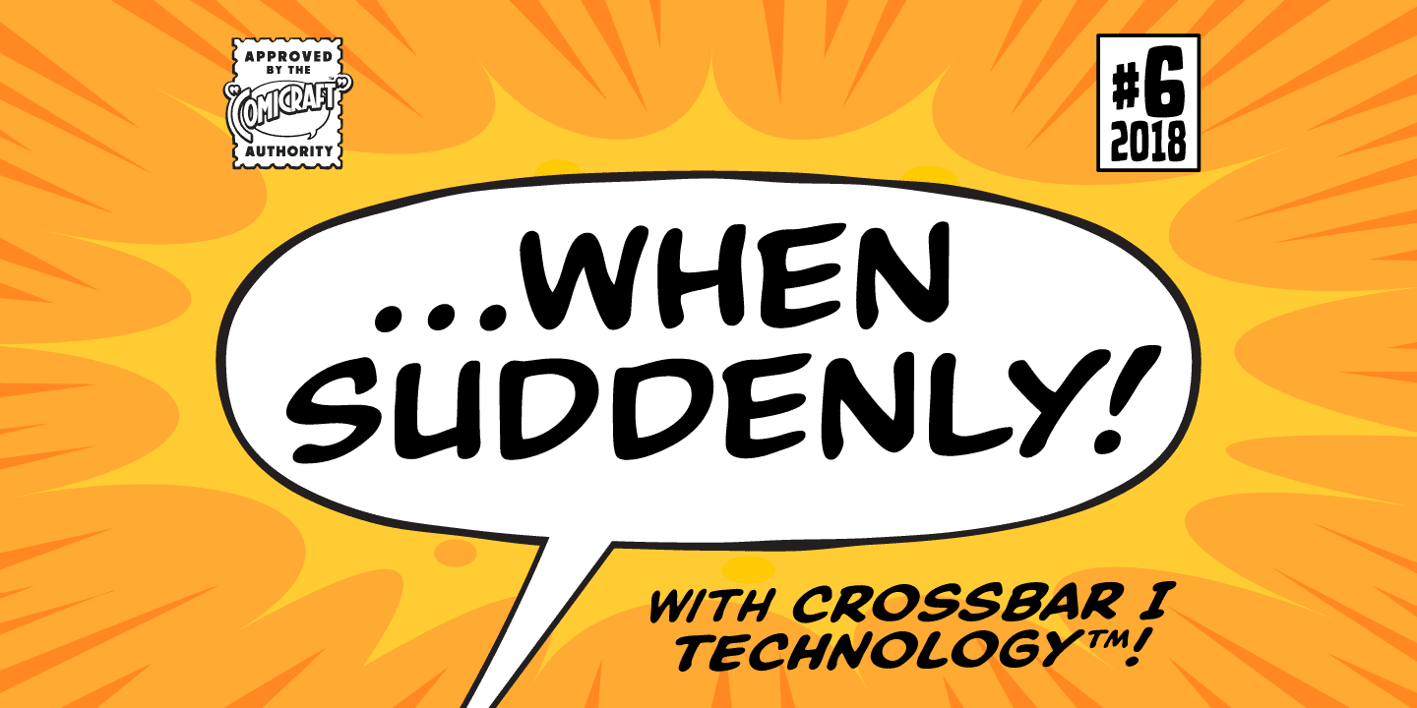
When Suddenly
When Suddenly Font Free Download is perfect for suspense novel covers, thriller movie titles, dramatic event posters, surprise product launches, plot-twist marketing campaigns, mystery game graphics, unexpected announcement designs, tension-filled advertising, and storytelling platforms. This dynamic typeface brings gripping suspense and narrative excitement to any drama-driven project.
What makes When Suddenly Font so exciting is its captivating ability to create instant intrigue and visual tension that keeps audiences engaged and anticipating what comes next. The dramatically designed letterforms feature unexpected angles and surprising proportions that mirror narrative plot twists and sudden revelations. Its suspenseful character hooks viewers emotionally while building anticipation, and the strong readability ensures your dramatic messaging maintains clarity even while creating excitement, making it ideal for storytellers, entertainment brands, and marketers who understand that capturing attention requires the same narrative techniques that make great stories unforgettable—surprise, tension, and the irresistible pull of wondering what happens next.
The When Suddenly Font family typically includes Regular, Bold, and Italic variations that add emphasis to dramatic moments. Some versions offer alternative characters with heightened tension effects. This narrative-driven collection provides designers with storytelling tools to create compelling visual sequences, establish memorable dramatic identities, and develop designs that honor the art of suspense, celebrate unexpected moments, and harness the psychological power of surprise to create lasting impressions and emotional engagement.